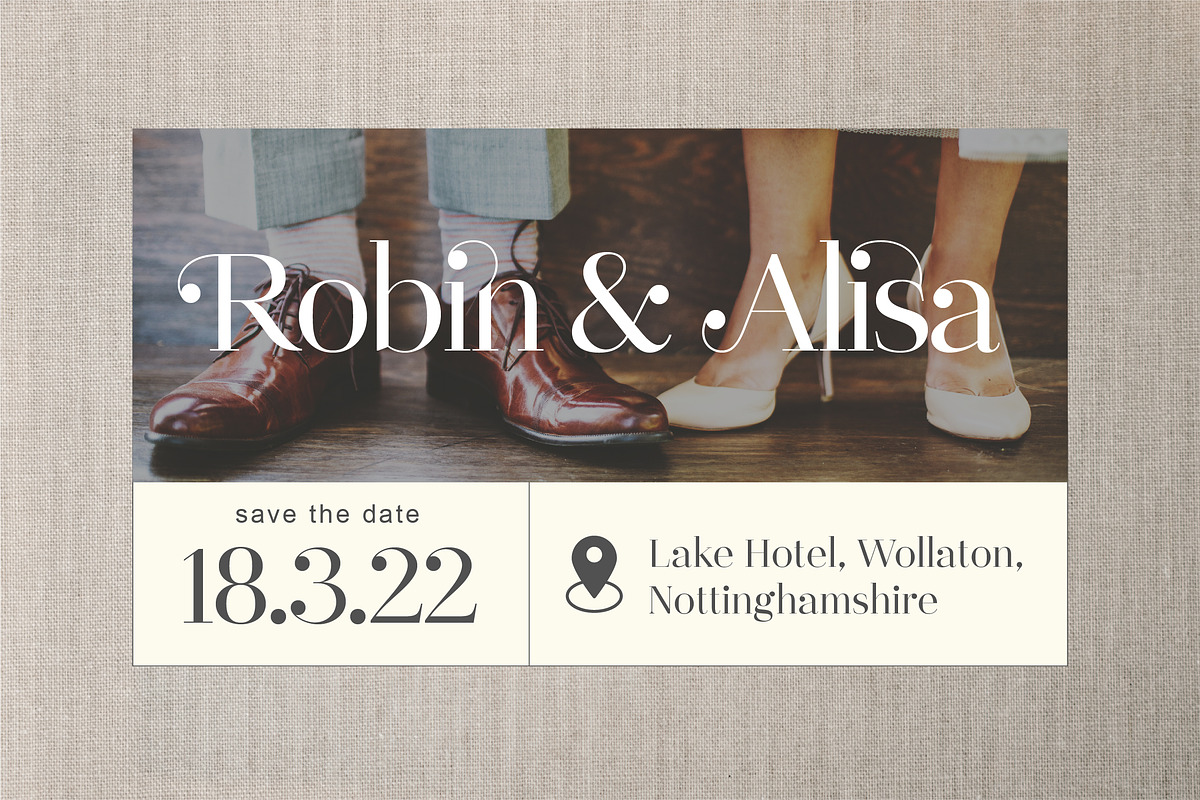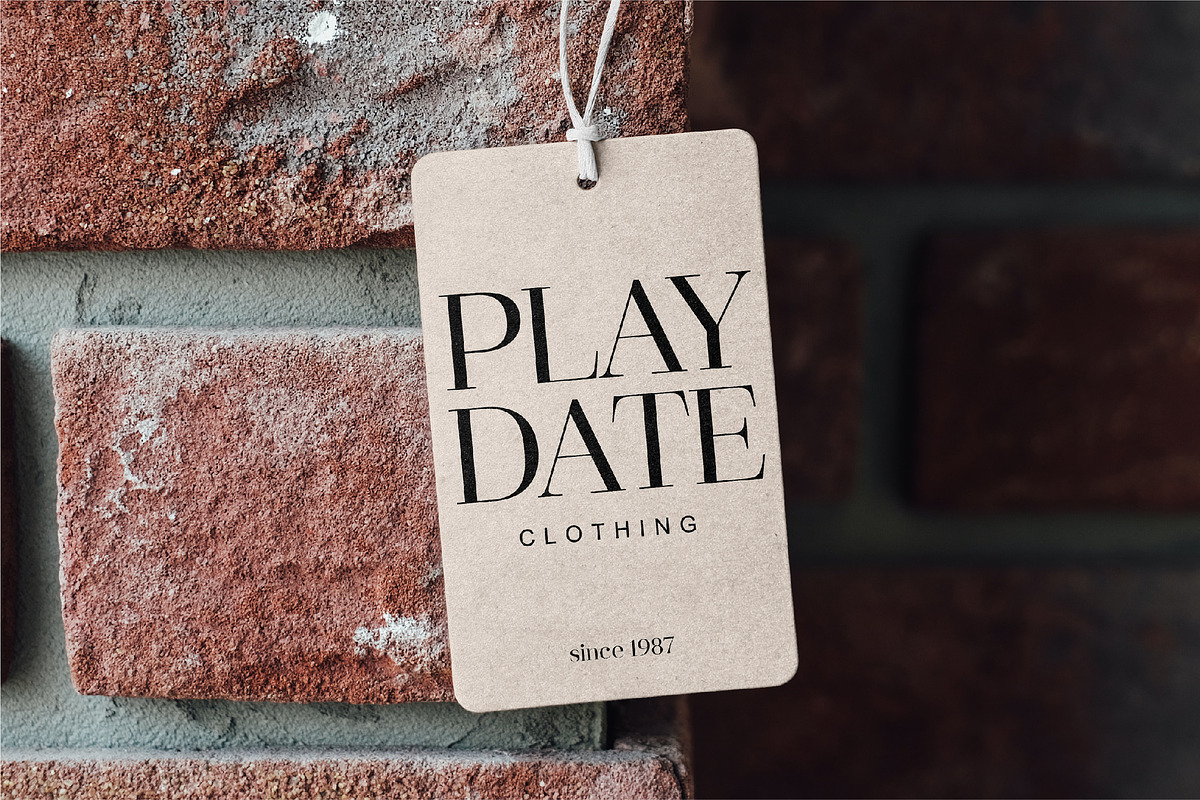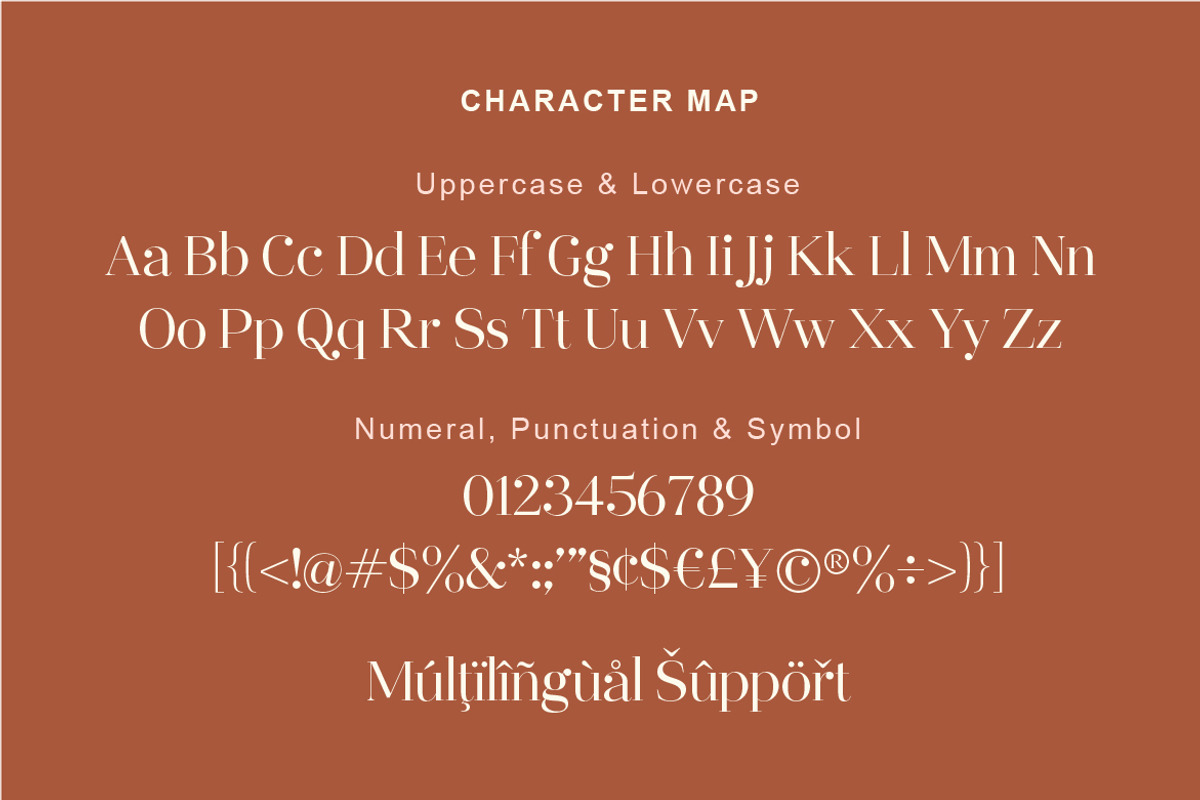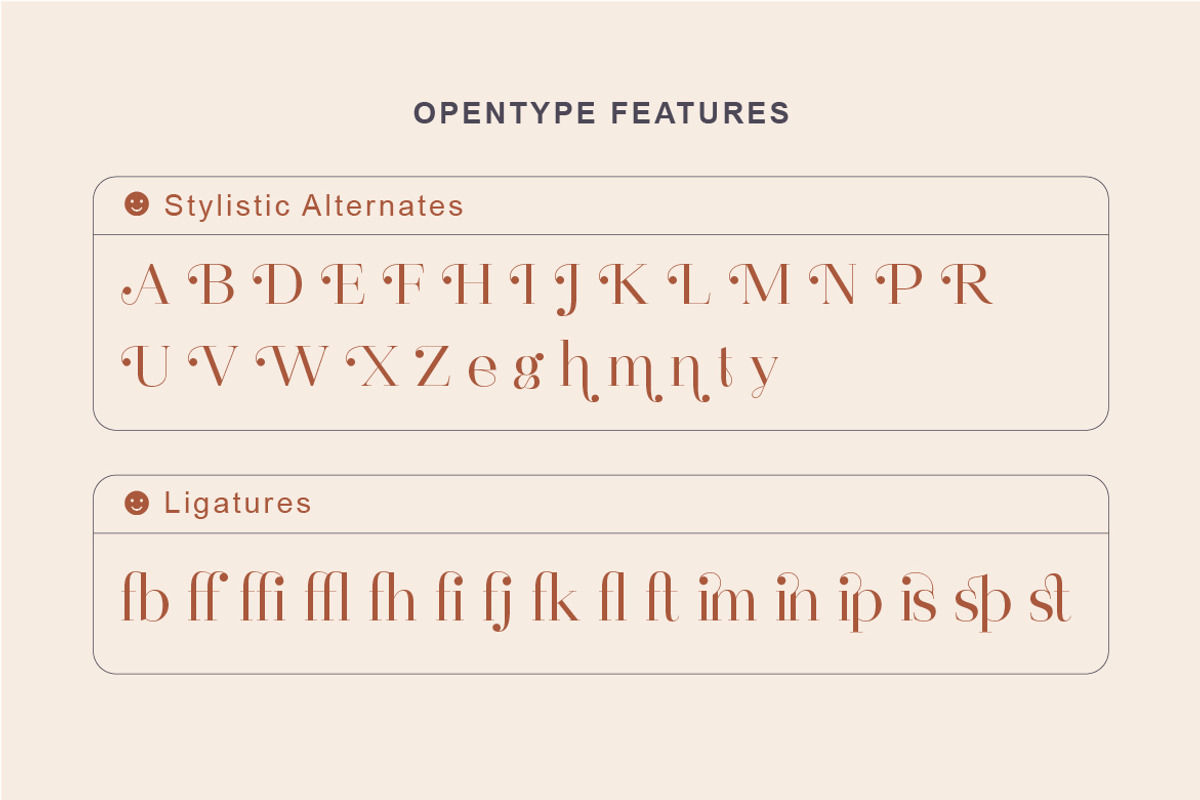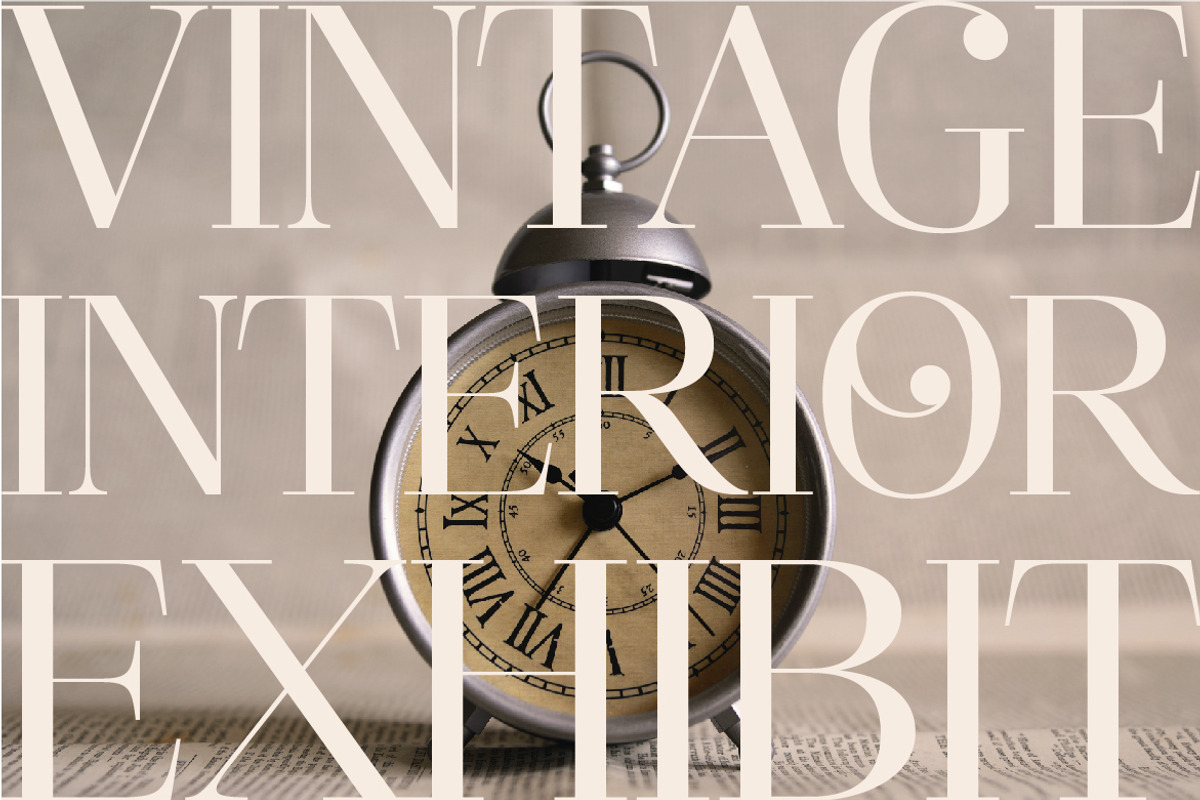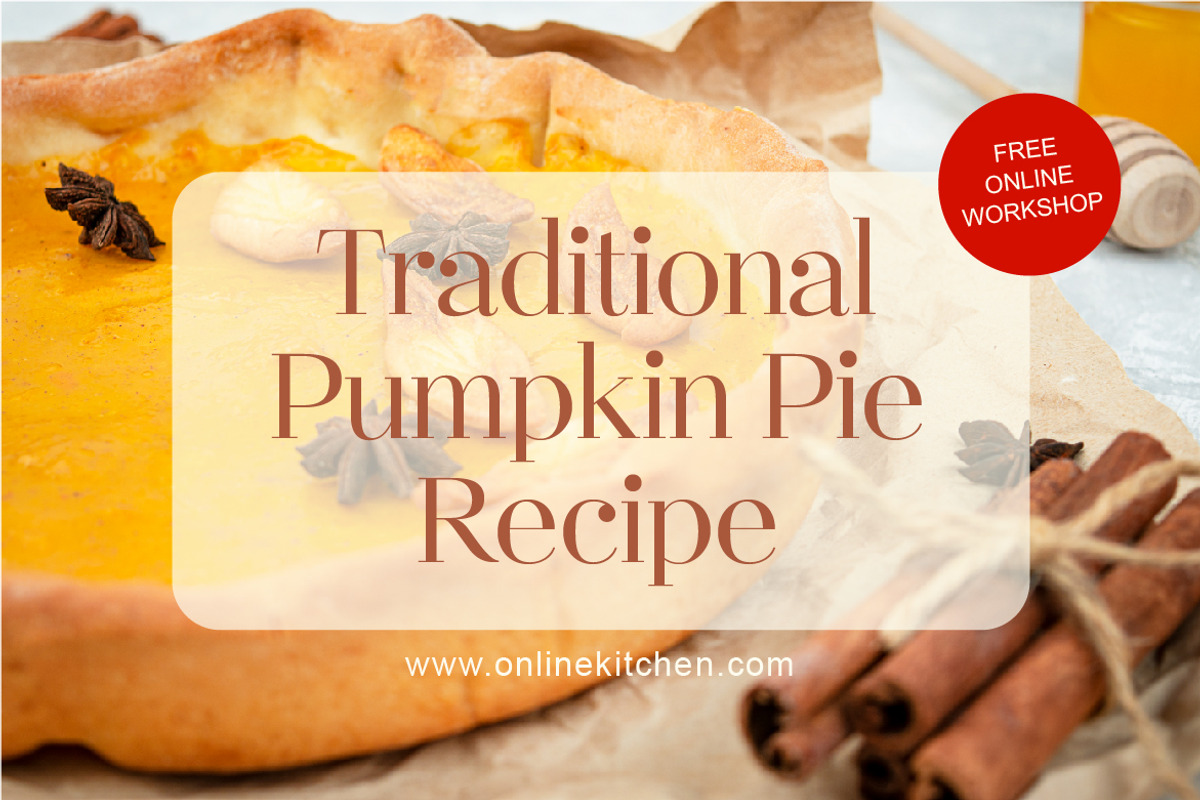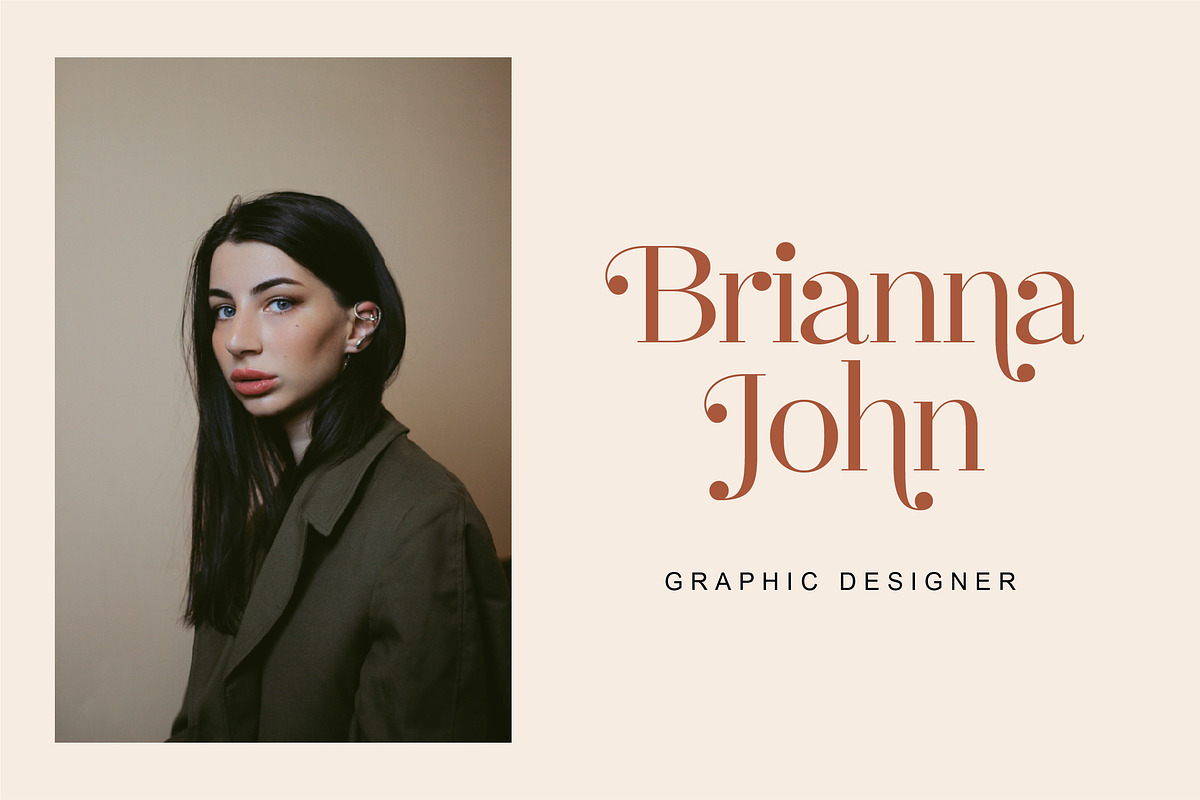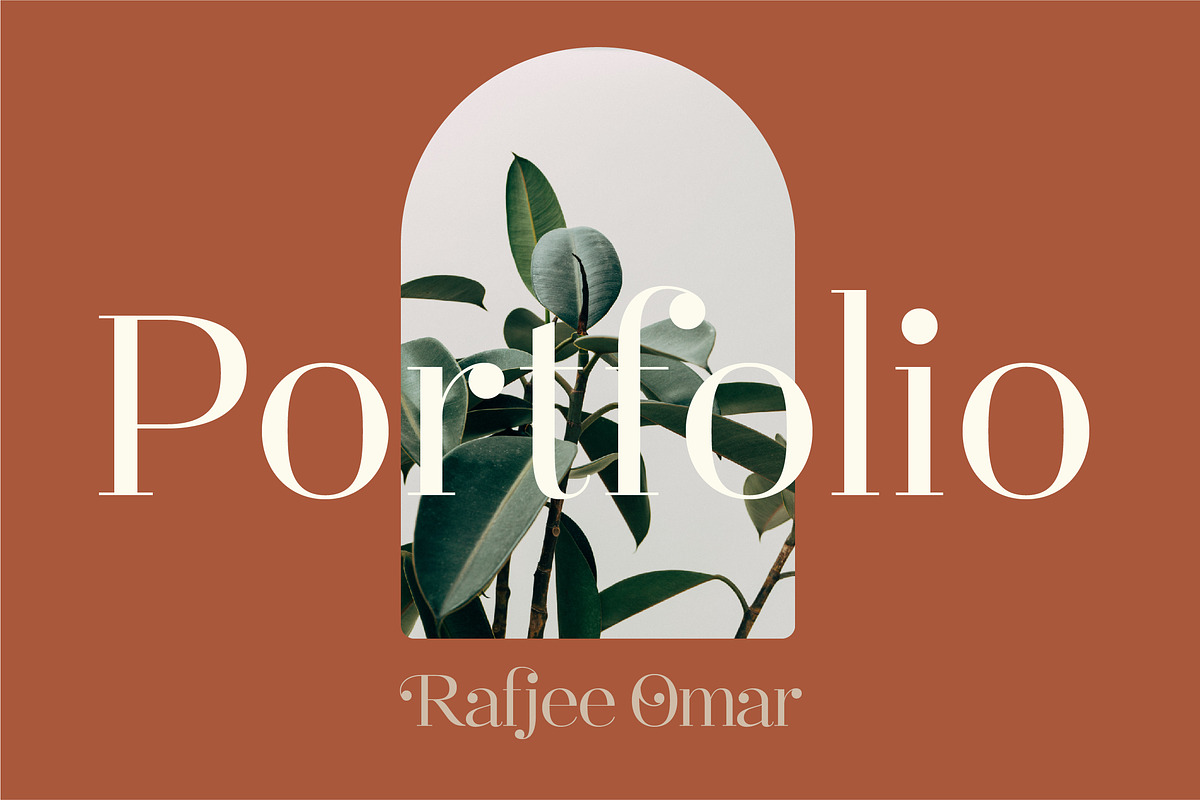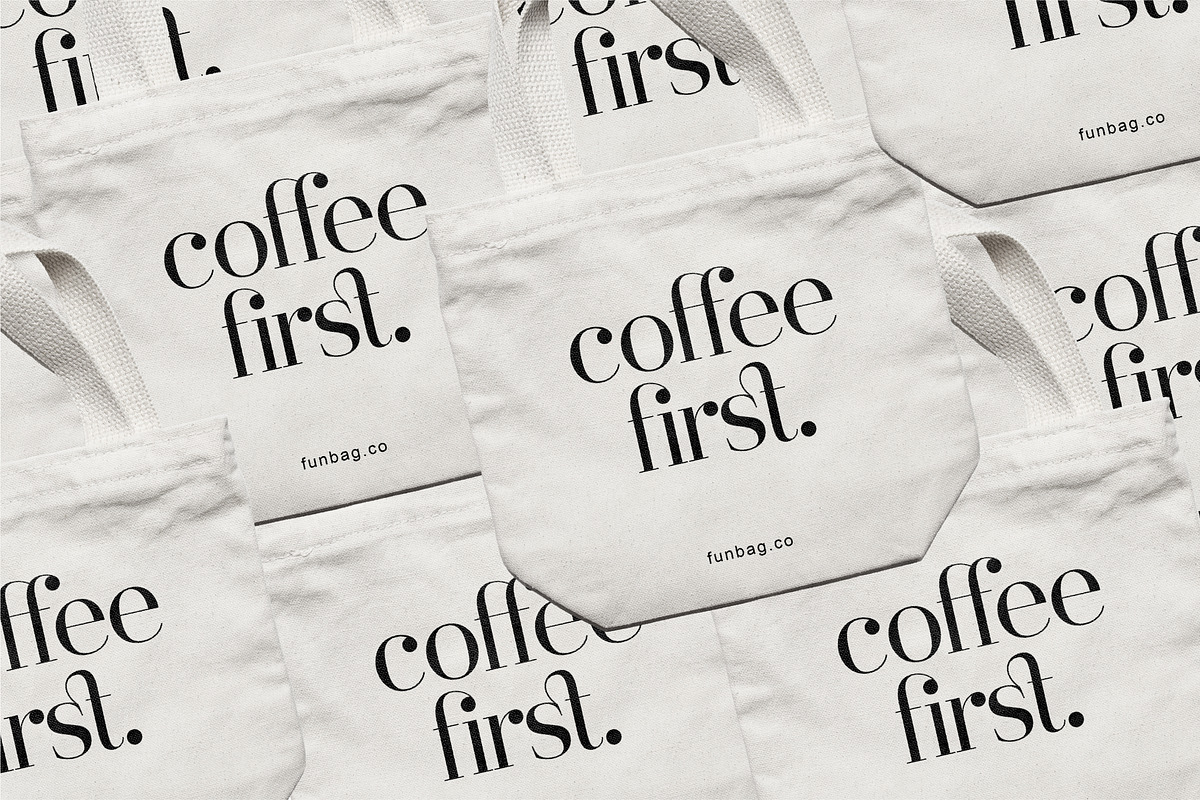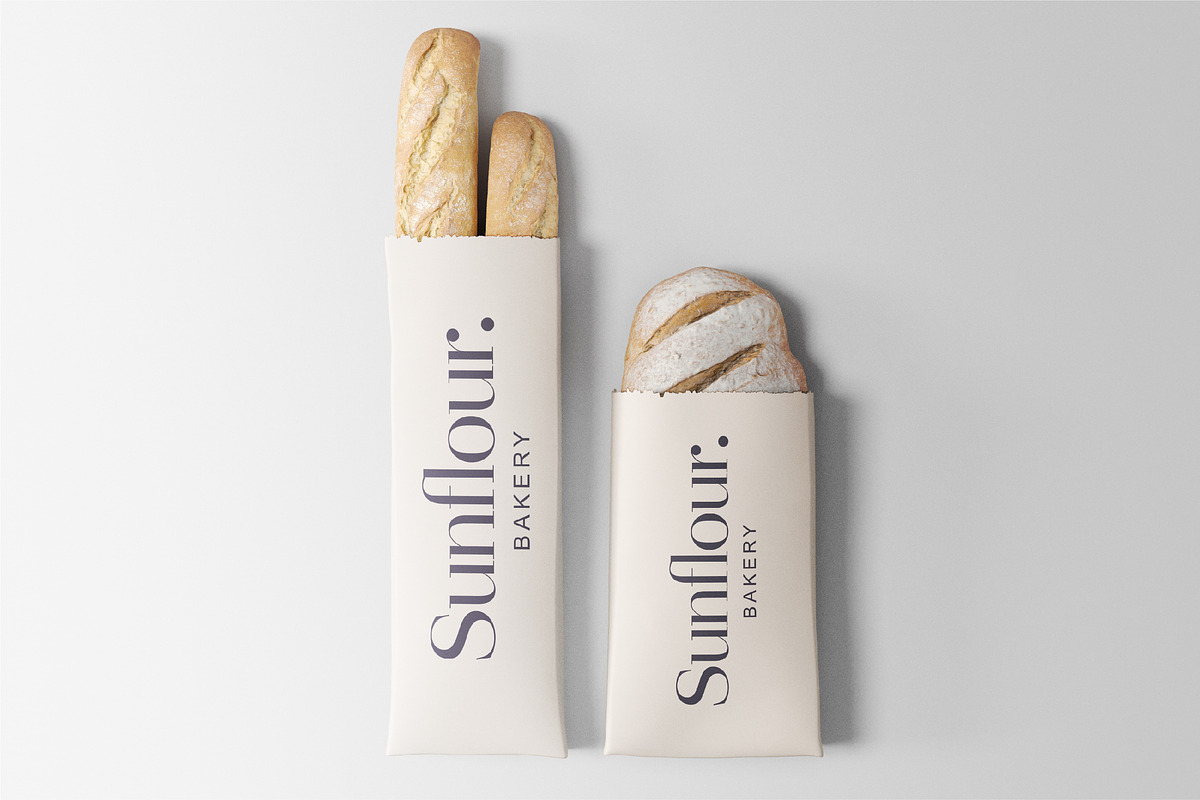
Destine | Modern Display Serif
Destine is a modern display typeface that has high contrast and hairline serif. The typeface inspired by Didot and Bodoni. Destine typeface has opentype features like stylistic ligatures and stylistic alternate to beautify any design project. This typeface is compatible for branding, logo, book magazine, headline, wedding invitation, and so on.
- Destine Regular font with full set of lowercase and uppercase letters, numerals and punctuation, multilingual characters, ligatures & alternates.